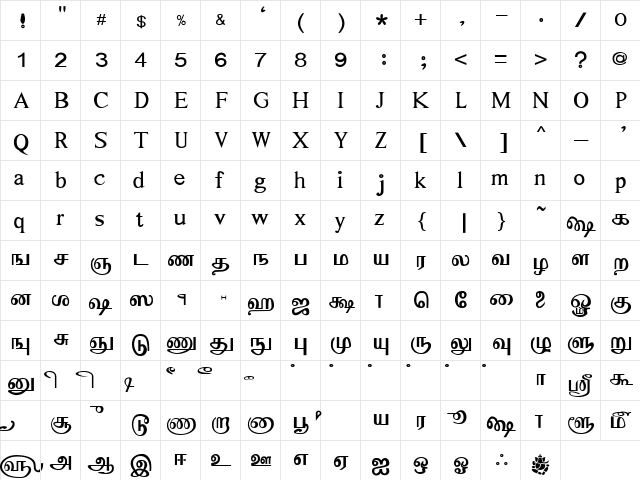
Adhawin-Tamil Regular
Adhawin-Tamil offers clean, dependable letterforms without strong stylistic allegiance, making it a practical choice for designers who need flexibility.